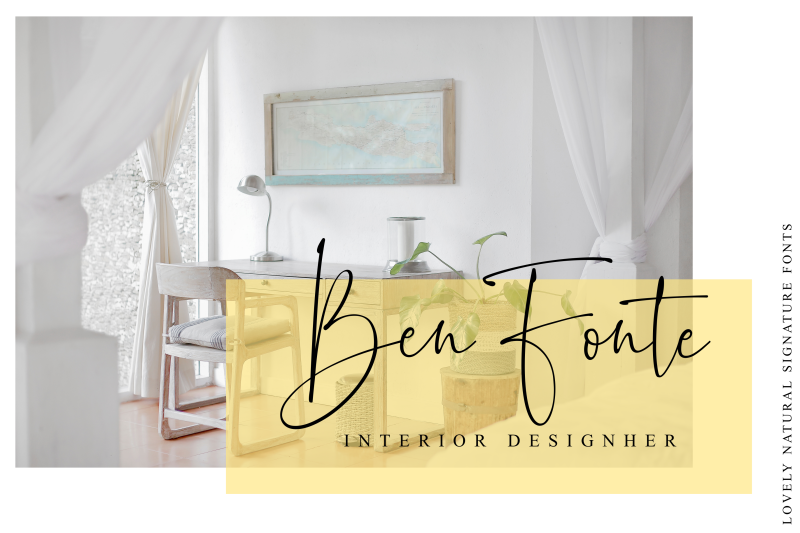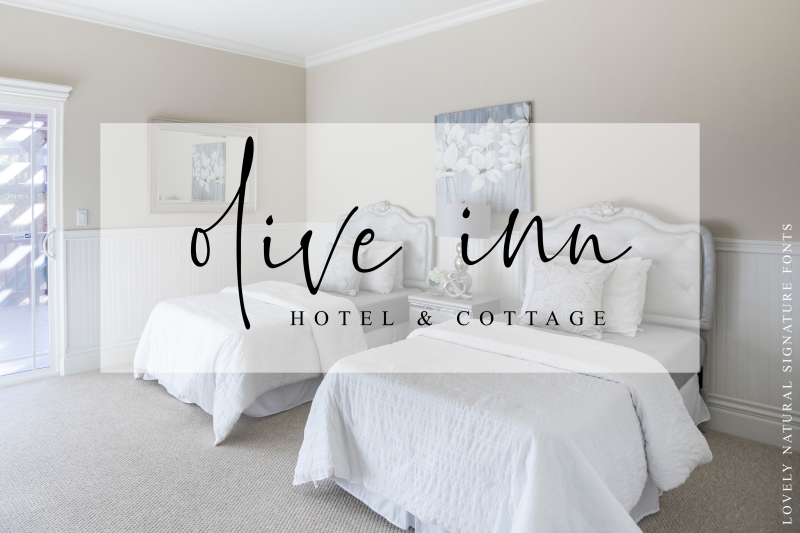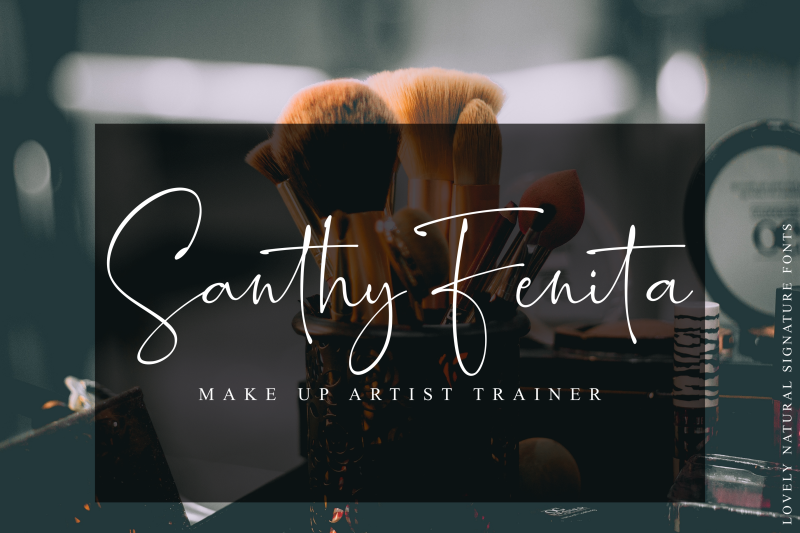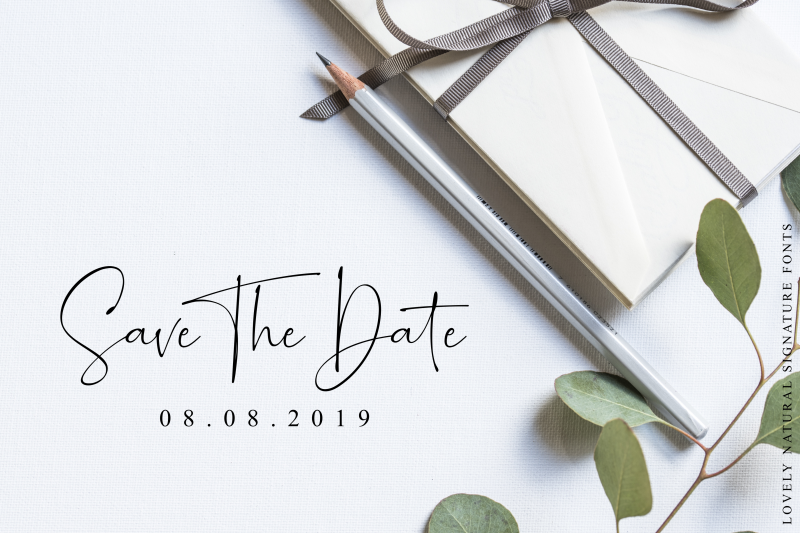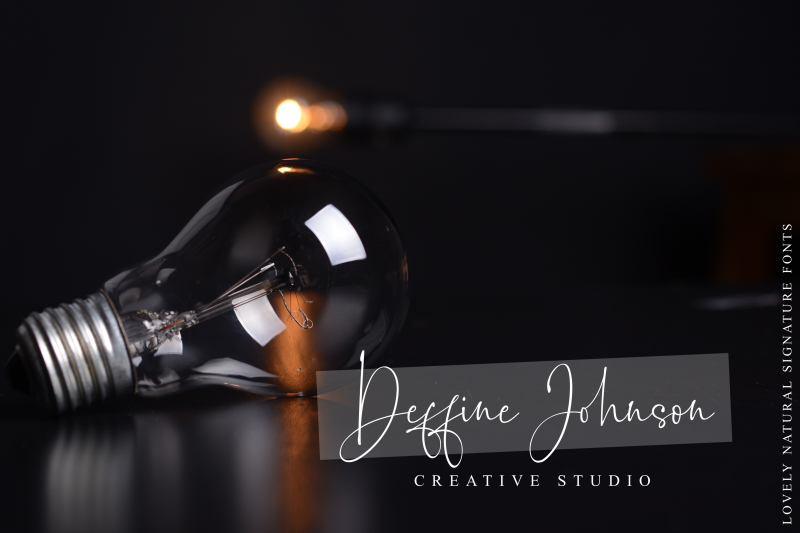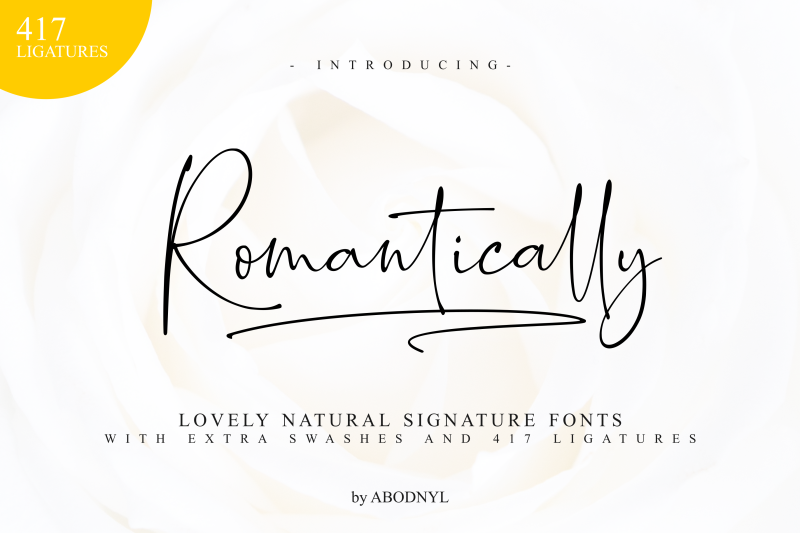
Romantically Font
Romantically Font is perfect for romantic wedding invitations, love letter stationery, Valentine's Day designs, intimate greeting cards, romantic restaurant menus, anniversary celebration materials, romantic poetry books, couple's photography branding, romantic retreat communications, bridal shower invitations, romantic jewelry packaging, and heartfelt projects that require tender, romance-inspired typography with emotional warmth and intimate sophistication.
What makes Romantically Font so exciting is its tender emotional warmth and intimate sophistication that embodies the pure essence of romantic love and the heartfelt beauty of genuine emotional connection. This typeface features graceful, flowing letterforms with romantic characteristics and gentle curves that evoke candlelit dinners, handwritten love letters, and the kind of intimate moments that define true romantic relationships. The font's romantic character and emotional appeal make it perfect for love-focused brands and intimate projects that want to communicate deep affection, emotional authenticity, and the kind of romantic sophistication that creates lasting emotional bonds and memorable romantic experiences.
Romantically Font typically comes in multiple weights and styles including Light, Regular, Medium, and Bold variations. Many versions also include romantic ornaments, heart-themed decorative elements, and love-inspired symbols that enhance the font's emotional functionality and provide designers with comprehensive tools for creating authentic, romance-focused typography compositions that celebrate love and emotional connection.
Whether you're designing wedding materials, romantic event communications, or love-focused branding, Romantically Font delivers exceptional emotional authenticity and romantic elegance that connects with couples who appreciate genuine romantic expression and heartfelt emotional communication. Its tender, graceful appearance works beautifully with romantic color palettes and intimate imagery, creating designs that feel both emotionally genuine and professionally romantic for meaningful love celebrations.
The lovingly crafted letterforms of Romantically Font demonstrate exquisite attention to the emotional details that make romantic typography both visually beautiful and emotionally compelling. Each character has been designed to capture the tender intimacy and emotional warmth of genuine romantic love while maintaining excellent readability, making it particularly valuable for romantic communications where typography must convey deep emotional connection and the kind of heartfelt authenticity that makes love truly meaningful.